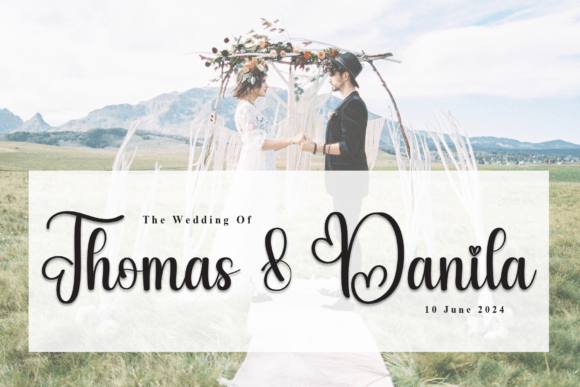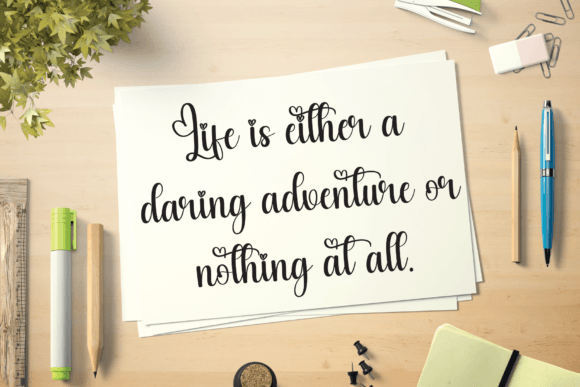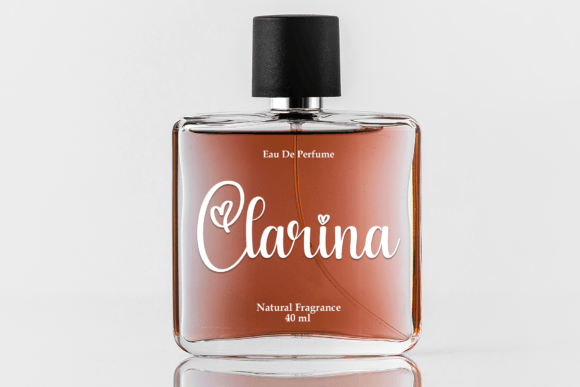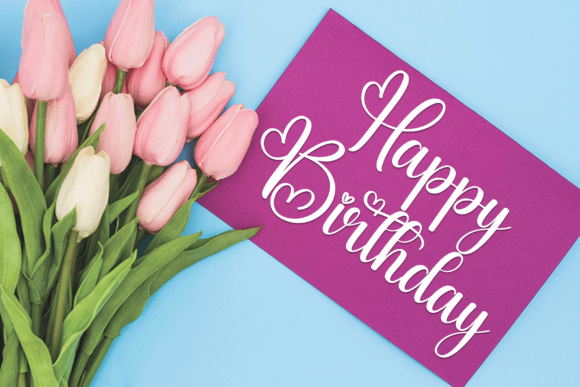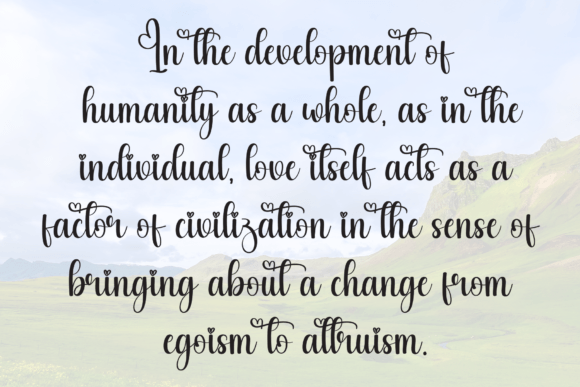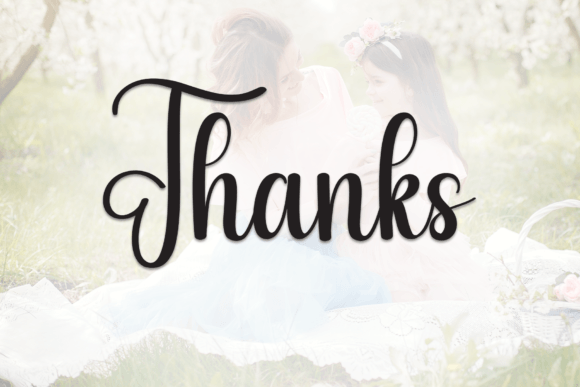
Discover the Sweet Charm of Angel Bestie Font
Have you ever stumbled upon a font that instantly sparks a creative idea? Maybe it was the perfect combination of a rainy afternoon, a steaming cup of coffee, and a blank page waiting to be filled. That’s exactly what happened when I discovered the Angel Bestie Font. This delightful, cursive handwritten font has a way of transporting you to a world of whimsy and romance.
With the Angel Bestie Font, you can add a touch of sweetness to your designs, from wedding invitations to birthday cards, and even personal journal entries. Its gentle curves and playful flair make it the perfect companion for any creative project. As a designer, you’ll appreciate the versatility and charm that this font brings to the table, elevating your work to new heights.
Angel Bestie Font Key Features
- Font Family: Angel Bestie is a unique, handwritten font that combines elegance and playfulness, making it perfect for various design projects.
- Character Set: Includes a wide range of characters, including uppercase and lowercase letters, numbers, and punctuation marks, making it suitable for various languages.
- Unique Characteristics: The Angel Bestie font features a distinctive, handwritten style with varying line widths and flourishes, giving it a personal and touchable feel.
Angel Bestie Font Review
I recently had the chance to work with the Angel Bestie Font and here’s my honest take on it.
- Playful and Whimsical: The Angel Bestie Font is perfect for adding a touch of playfulness to your designs. Its whimsical feel makes it ideal for kids’ content, fashion, or lifestyle projects.
- Versatile: Despite its unique style, the font is surprisingly versatile and can be used in a variety of contexts, from headings to body text.
- Legibility: The font is well-designed for readability, making it easy to use for longer blocks of text.
- Not Suitable for Formal Content: Due to its playful nature, the Angel Bestie Font may not be the best choice for formal or professional projects.
- Limited Character Set: The font’s character set is relatively limited, which may cause issues when working with non-English characters or special symbols.
- May Not Translate Well: The font’s unique style may not translate well when scaled up or down, which could affect its overall appearance.
Overall, the Angel Bestie Font is a fun and versatile font that’s perfect for adding a touch of personality to your designs. While it may not be suitable for all types of projects, it’s definitely worth considering for your next creative endeavor.
Use the Angel Bestie font for titles, headings, and other emphasis points to add a touch of elegance to your design.
Combine the Angel Bestie font with other fonts for a unique and creative look.
Birthday party decorations and invitations
Branding and marketing materials